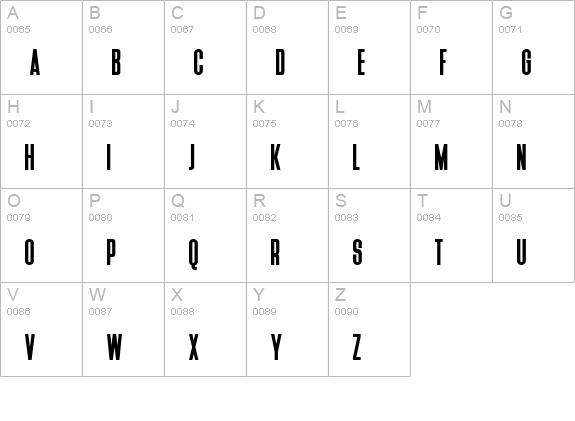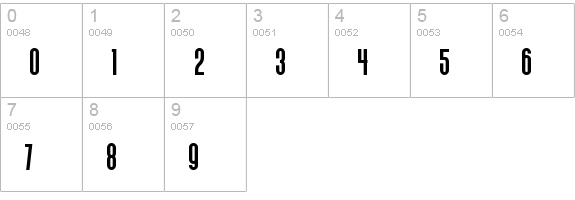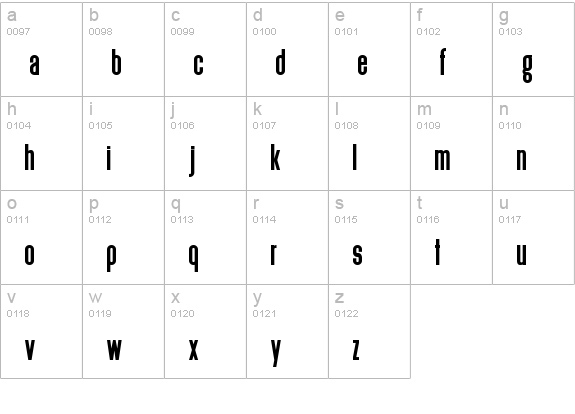
Introducing Deutschlander font, a stunning typeface that captures the essence of German craftsmanship and tradition. With its clean lines and bold presence, this font is perfect for adding a touch of elegance and sophistication to your designs. But what sets Deutschlander font apart is its availability - it is completely free! Yes, you heard it right. This incredible font can be freely downloaded at FontsMarket.com, making it accessible to designers and creatives worldwide. Whether you're designing a logo, creating captivating headlines, or crafting eye-catching posters, Deutschlander font will undoubtedly make a statement. Its versatile nature allows it to seamlessly adapt to various design projects, be it modern or vintage-inspired. The attention to detail in Deutschlander font is truly remarkable. Each character is meticulously crafted, ensuring a harmonious balance between elegance and legibility. Its timeless appeal will undoubtedly stand the test of time, making it a valuable addition to any designer's toolkit. So why wait? Embrace the beauty and versatility of Deutschlander font today. Download it for free at FontsMarket.com and unlock a world of endless creative possibilities. Whether you're a seasoned designer or just starting on your creative journey, Deutschlander font is here to elevate your designs to new heights.